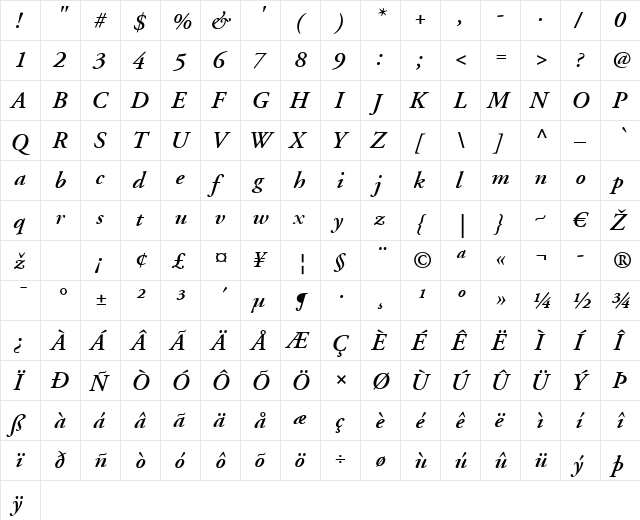
AGaramond LT Bold Italic Font Preview
AGaramond LT Bold Italic
AGaramond LT Bold Italic Font Details
Design Context for AGaramond LT Typeface
AGaramond LT is a composed and adaptable typeface that performs quietly and consistently across a wide range of design contexts. Its italic angle brings a sense of urgency and motion to the letterforms. Its bold stroke weight gives it real presence on the page.
Pro Tip: Use AGaramond LT for emphasis, pull quotes, and subheadings where its slanted energy can add rhythm to the layout.